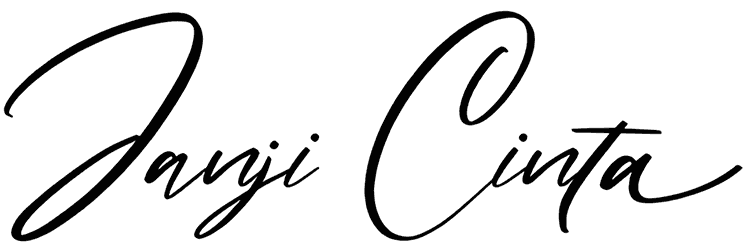
Janji Cinta is intended to be used for your personal branding and implements a handwriting style. If you need a signature font that reflects the personality of a real person in your designs, put this font at the top of your list.
This script font can create an emotional feeling between the audience and the designer, thus conveying your message with a more sophisticated tone. So, it is an outstanding choice for designing greeting cards, product packaging, and social media posters.